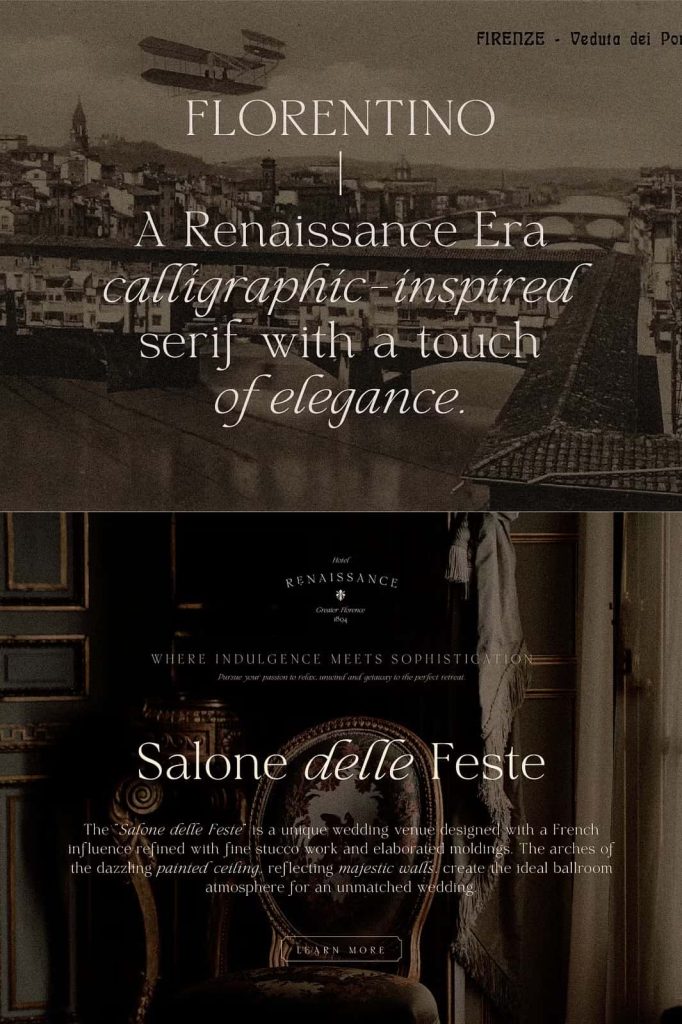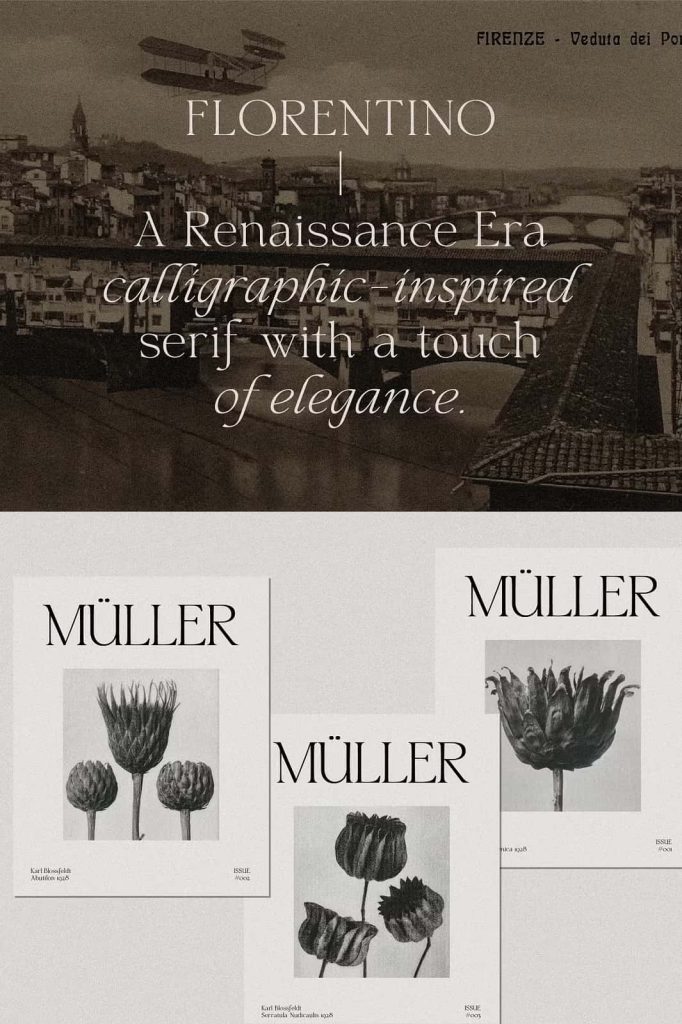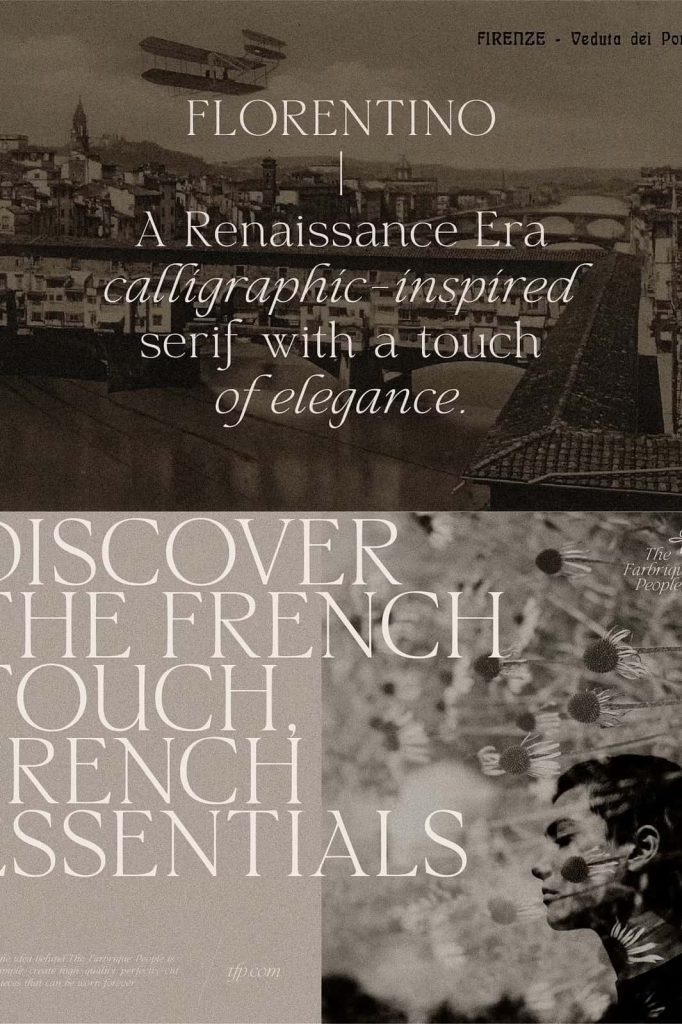
Florentino – Calligraphic SerifleastedMarch 18, 2025Fonts Florentino – a Renaissance Era calligraphic-inspired serif with a touch of elegance. Download